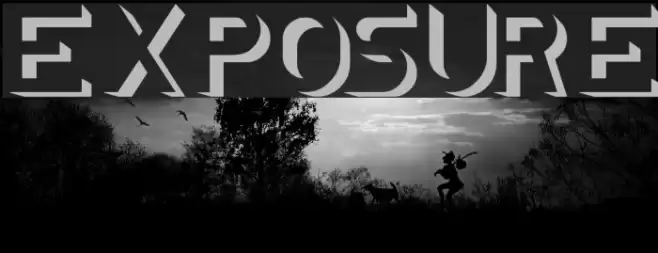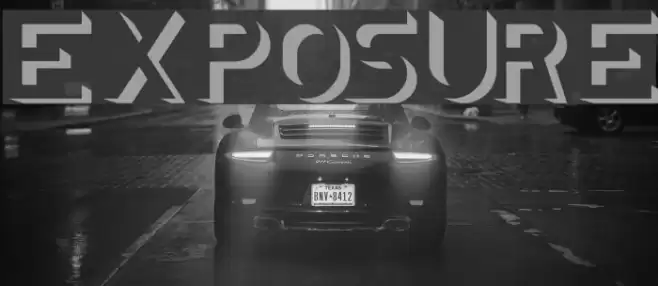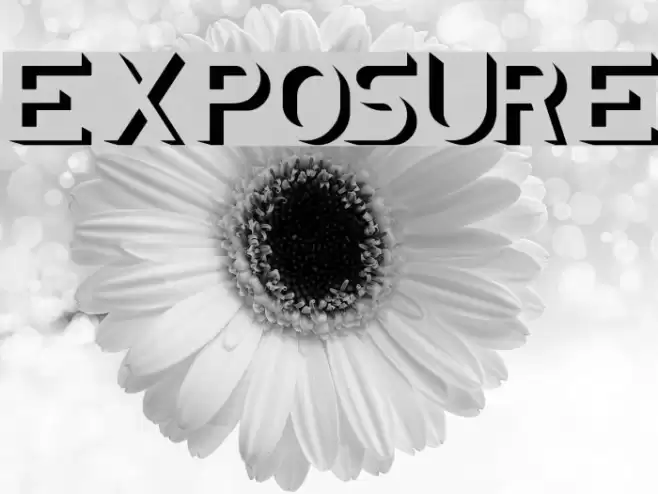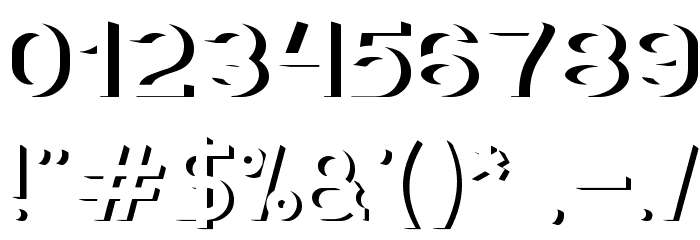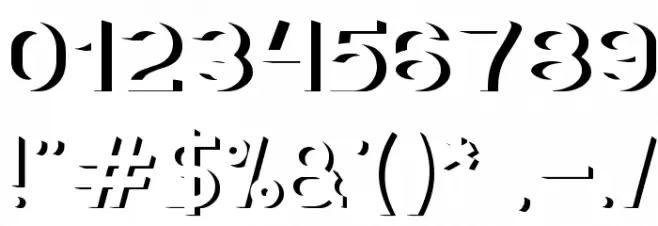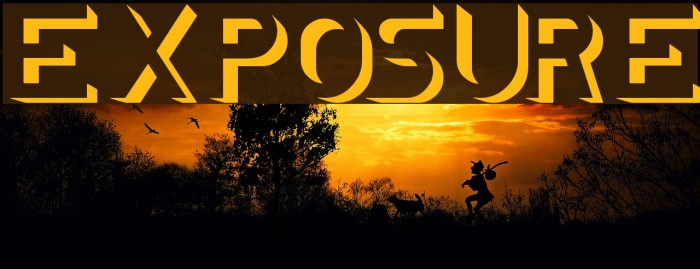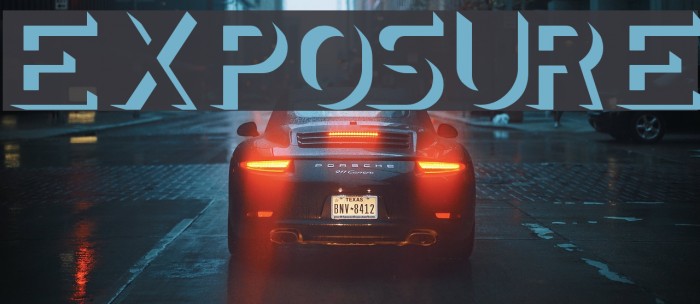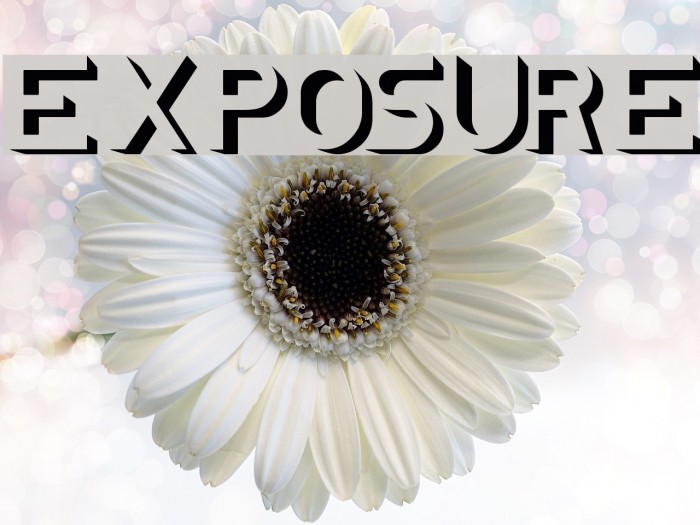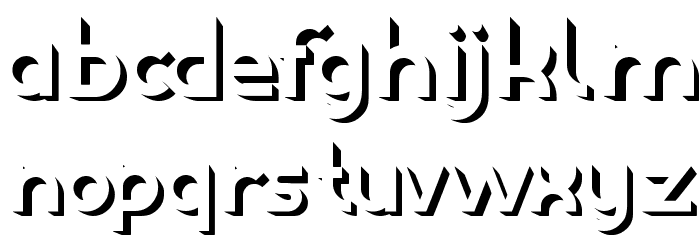
EXPOSURE Font
EXPOSURE Description
This font features a bold and striking design with a stencil-like appearance. The characters are crafted with sharp, angular edges and distinct cutouts that create a sense of depth and dimension. The uppercase and lowercase letters maintain a consistent style, emphasizing geometric shapes and clean lines. Numbers and special characters follow the same aesthetic, ensuring uniformity across all glyphs. The overall look is modern and industrial, making it suitable for projects that require a strong visual impact.
A bold, stencil-like font with sharp, angular edges and geometric shapes from Uncategorized fonts.
- Proposed Projects: Ideal for branding, posters, signage, and any design that requires a bold, industrial look.
- Overall Style: Modern, Industrial